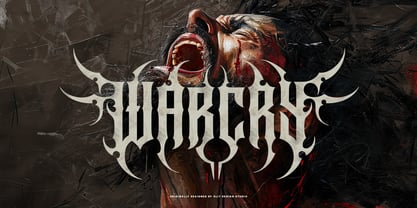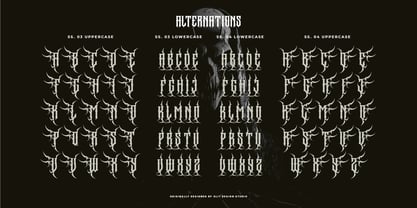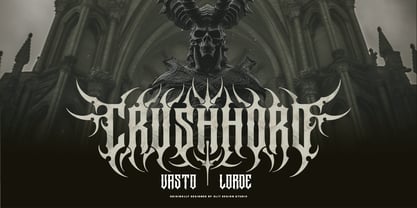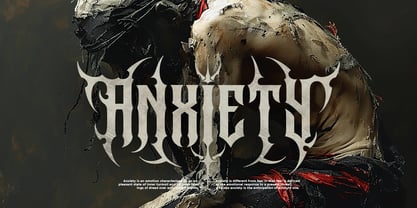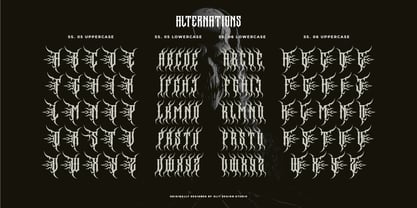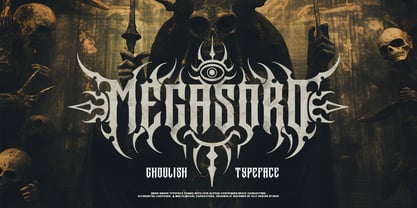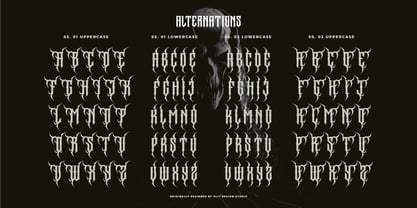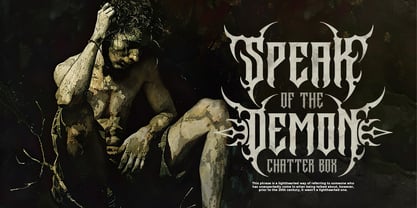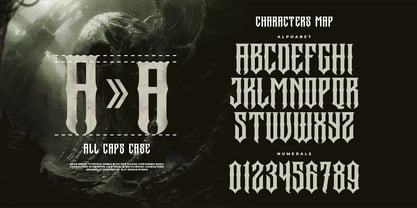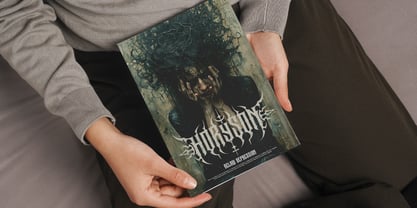
Megasord
by Alit Design
The Megasord Font Family was designed by Alit Suarnegara and published by Alit Design. Megasord contains 1 styles. More about this family
Megasord Typeface: Unleash the Fierce Power of Modern Death Metal Design
Enter a world of untamed intensity with Megasord Typeface, a striking font inspired by the raw energy of modern death metal. Designed to embody ferocity, mystery, and darkness, this typeface channels the essence of tribal shapes, demonic horns, wings, and hellish eyes. It’s the perfect choice for those looking to create designs that demand attention and exude a cruel yet captivating aura.
Features
• Massive Character Set: A robust collection of 783 characters ensures unmatched versatility for your creative projects.
• Extensive Alternates: Explore countless alternatives to personalize each letterform and craft unique compositions.
• Dynamic Ligatures: Seamlessly connect characters with bold ligatures that enhance the font's aggressive aesthetic.
• Decorative Swashes: Add flair and intensity with dramatic swashes that bring an extra layer of style.
Perfect For
Megasord Typeface is your go-to choice for band logos, album covers, poster designs, merchandise, tattoos, and any project requiring a menacing yet artistic edge.
Why Choose Megasord Typeface?
Its intricate tribal-inspired details and hellish motifs are crafted to make an unforgettable impression, delivering both modernity and primal power. Whether you're designing for the music industry or a dark fantasy project, Megasord sets the stage for visual domination.
Dare to Design Fierce. Choose Megasord Typeface.